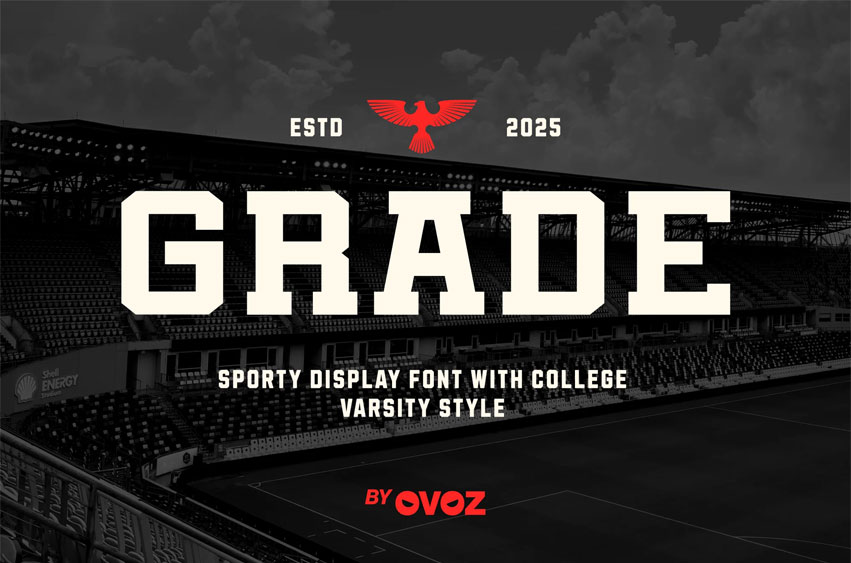
Grade Sports Font
Grade Sports Font is a sport-bold varsity display font inspired by classic college lettering and competitive athletic tradition. Its sturdy slab forms, squared edges, and commanding presence make it ideal for sports branding that values heritage, strength, and discipline. GRADEfits seamlessly into football posters, basketball graphics, baseball merchandise, soccer team identities, and racing visuals that need a clean yet powerful athletic character. Whether for gym apparel, fitness campaigns, golf events, or multi-sport promotions, this typeface delivers a bold sport personality rooted in classic academic competition.
Built to perform across collegiate and professional environments, GRADEexcels in jersey numbers, team branding, biker tournament signage, hockey posters, and fight-night promotions. Its traditional varsity backbone combined with modern refinement gives every layout a strong sense of authority and sporty confidence. From race-day graphics to athletic editorial design, GRADEenhances your message with structure, durability, and timeless competitive energy—perfect for any project that blends sportsmanship, strength, and academic pride.
Bold Moves, Strong Letters — where dynamic sport energy meets modern precision to create a fearless competitive identity.